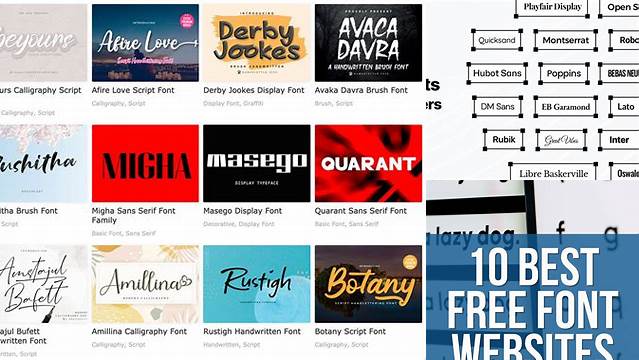
Find The Best Font Sites: A Reddit Guide
Hey guys! So, you're on the hunt for the absolute best website to download fonts, huh? And you've heard whispers of Reddit being the place to find the real gems? You're in luck! This guide is your one-stop shop, diving deep into the world of fonts, what makes a website great, and, of course, what the Reddit community has to say about the top contenders. We'll explore everything from free font havens to premium font marketplaces, ensuring you're well-equipped to find the perfect typography for your projects. Whether you're a seasoned designer, a budding enthusiast, or just someone who wants to jazz up their documents, this is your ultimate resource. Let's get started, shall we?
H2: Reddit's Favorite Free Font Websites: Where the Good Stuff is Free
When it comes to finding free fonts, Reddit users are a goldmine of recommendations. They're all about sharing the best resources, and their upvotes and comments often point to the most reliable and high-quality options. Among the most popular suggestions, you'll find websites that offer a wide range of fonts, from classic serifs and sans-serifs to more quirky and unique designs. These sites often host fonts with different licenses, so it’s essential to check the licensing terms to make sure you can use the font for your intended purpose, be it personal or commercial. For instance, some fonts may be free for personal use but require a license for commercial projects. Reddit users frequently emphasize the importance of checking licenses, pointing out potential legal issues if you're not careful. They also value websites with a clean interface, easy navigation, and clear previews that show how the font will look in various settings. Sites that provide a large selection and frequent updates are also highly praised. Expect to find discussions about websites with excellent search functions, allowing you to easily find fonts based on style, weight, or designer. Some of the most-mentioned websites will be sites that meticulously curate their font selections, offering a quality control that saves users time and effort. Many Redditors also appreciate sites that offer font families, where you can download different weights and styles of the same font, giving you more design flexibility. Community forums on these websites or even Reddit threads often discuss which fonts are trending and which ones offer the best value or design aesthetics. Navigating the vast landscape of free font websites can be daunting, but the Reddit community is there to guide you. They constantly highlight the most user-friendly and trustworthy platforms.
H2: Navigating Font Licensing: Understanding the Fine Print
Font licensing is a crucial aspect that Reddit users frequently discuss when evaluating the best website to download fonts. It's a legal minefield if you're not careful, so understanding the different types of licenses is essential. Common licenses include personal use, commercial use, and open-source licenses. Personal use licenses typically allow you to use a font for non-commercial projects, such as personal documents, school projects, or hobbyist designs. Commercial use licenses, on the other hand, are required if you plan to use the font in any project that generates revenue, such as business logos, websites, or products. Redditors often stress the importance of reading the fine print, as the terms can vary widely from one font to another. Open-source licenses are highly valued in the Reddit community because they often offer more flexibility, allowing for free use and modification. However, even with open-source fonts, it’s still essential to check the specific license terms. Some licenses, like the SIL Open Font License, are known for their permissive nature. Reddit users also frequently debate the nuances of font licensing in different jurisdictions, especially when it comes to international projects. They share tips on how to identify reliable websites and how to spot potential licensing red flags. This includes checking the reputation of the font foundry and ensuring that the website clearly states the licensing terms. Font licensing isn't just about avoiding legal trouble; it's about respecting the designers and their work. By understanding the terms, you're ensuring that you're using the font legally and supporting the font creators. It’s common to find threads where users share experiences with licensing, highlighting instances where they've successfully used a font commercially and providing insights into different licensing models. The Reddit community is a great place to stay informed about the latest licensing updates and best practices.
H3: Understanding Font Licenses: Personal vs. Commercial Use
Delving deeper into font licensing, let's break down the difference between personal and commercial use licenses – something Reddit users constantly discuss when evaluating the best website to download fonts. Personal use licenses are designed for non-commercial projects, such as creating personal documents, crafting homemade greeting cards, or working on school assignments. These licenses are typically free, allowing individuals to use the font without any cost. The key restriction is that the font cannot be used for projects that generate revenue or are intended for business purposes. This includes logos, websites, marketing materials, or products sold for profit. Commercial use licenses, conversely, are required when a font is used in any project that generates income or benefits a business. This covers a wide range of uses, from creating a company logo to designing marketing materials for a product. Commercial licenses can vary significantly in cost, depending on the font, the foundry, and the intended use. Some fonts offer a single-use license for a fixed price, while others offer subscription-based licenses. Reddit users often recommend researching and comparing different licensing options to find the best value for their specific needs. Many threads focus on scenarios where the line between personal and commercial use can blur. For example, a Redditor might ask if using a font for a social media post promoting a small business constitutes commercial use. The answers are often nuanced, with users emphasizing the importance of understanding the intent and the potential for generating revenue. Discussions also include examples of situations where the use of a font has led to legal disputes, highlighting the importance of adhering to the licensing terms. Understanding the different licensing models is the cornerstone of responsible font usage, and the Reddit community provides numerous resources and insights to ensure you're making informed decisions.
H3: Identifying Reliable Font Foundries and Websites
Choosing the right website is a critical step in finding the best website to download fonts, and Reddit users offer invaluable guidance on identifying reliable font foundries and websites. A reliable foundry is one that produces high-quality fonts and provides clear licensing terms. Redditors often recommend checking the foundry's reputation by searching for reviews or testimonials. A website that has a good reputation usually means the website has a clean record and many people that love the content on the website. Good customer support is another sign of reliability; a website that responds to inquiries and addresses issues promptly is usually considered trustworthy. Reddit users also advise against downloading fonts from websites that seem suspicious or untrustworthy. These websites may offer fonts that are illegally distributed or contain malware. They suggest checking the website's design and the quality of the fonts themselves as indicators of reliability. Professional websites typically have a polished appearance, clear information about licensing, and high-quality font previews. Reddit threads are filled with recommendations for specific websites and foundries that the community trusts. Users often share their personal experiences with different websites, highlighting both the positives and the negatives. Some websites are praised for their curated font selections, while others are criticized for their poor customer service or unclear licensing terms. Finding a website that offers high-quality fonts and reliable support is what most Redditors want when looking for the best website to download fonts. Websites are constantly being updated, so Redditors are often the best resource when determining if a website is trustworthy or not.
H2: Exploring Premium Font Marketplaces: When You Need Something Extra
Sometimes, the free font offerings just aren't enough. When you're looking for something truly unique or a font with specific features, premium font marketplaces are the place to go. Reddit users often discuss these platforms, offering insights into the best options for those willing to invest in quality typography. Premium marketplaces typically offer a wider selection of fonts, including designs from professional foundries and independent designers. They often provide more advanced features, such as extended character sets, multiple weights and styles, and improved licensing options. Some popular premium marketplaces include Adobe Fonts (formerly Typekit), MyFonts, and Creative Market. Each platform has its strengths and weaknesses, and Reddit users share their experiences to help others find the best fit. Adobe Fonts, for instance, is often favored by users who are already part of the Adobe Creative Cloud ecosystem. It provides seamless integration with design software and a vast library of fonts. MyFonts is another well-regarded platform, known for its extensive collection and the ability to browse fonts based on various criteria, such as style, designer, and price. Creative Market appeals to designers who appreciate unique, handcrafted fonts, often bundled with other design assets. Reddit threads often compare these marketplaces, discussing the pricing, the licensing terms, and the quality of the fonts available. Users share tips on how to find deals, such as taking advantage of sales or discounts. Navigating these premium marketplaces can be daunting, but the Reddit community is there to help you make informed decisions. They discuss the benefits of investing in premium fonts, such as the added value they bring to your projects and the legal security of using properly licensed fonts. Premium marketplaces can be a great resource to find professional-quality fonts that will make your designs stand out.
H3: Top Premium Font Marketplaces According to Reddit
Identifying the best premium font marketplaces is a common topic on Reddit, where users share their experiences and recommendations for the best website to download fonts when you're willing to pay. Adobe Fonts (formerly Typekit) is frequently mentioned due to its seamless integration with Adobe Creative Cloud applications. Users appreciate the convenience of accessing a vast library of fonts directly within their design software. Reddit discussions highlight the value of Adobe Fonts for designers who regularly use Photoshop, Illustrator, or InDesign. MyFonts is another top contender, beloved for its extensive collection and user-friendly interface. Reddit users praise MyFonts for its advanced search capabilities, allowing them to filter fonts based on various criteria, such as style, designer, and price. They also value the platform's comprehensive licensing information, which makes it easy to understand the terms of use. Creative Market stands out for its focus on unique, handcrafted fonts. Redditors appreciate the creative variety and the opportunity to support independent designers. The platform's bundles, which often include fonts along with other design assets, are a great value for users looking to get more for their money. Monotype, a well-established foundry, often receives mentions for its high-quality fonts and reliable licensing. Redditors often discuss the benefits of choosing fonts from reputable foundries, ensuring that the fonts are well-designed and legally licensed. The Reddit community often compares these marketplaces, highlighting the pros and cons of each platform. They share tips on how to find deals, such as taking advantage of sales or discounts. Understanding what each platform offers is important to finding the best option for each individual design needs.
H3: The Advantages of Investing in Premium Fonts
Investing in premium fonts is often a topic of discussion on Reddit when users are searching for the best website to download fonts. Many Redditors highlight the advantages of paying for high-quality typography. One of the most significant benefits is the superior quality and design that premium fonts often offer. They are typically created by professional designers with years of experience, resulting in fonts that are well-crafted, aesthetically pleasing, and optimized for various uses. Premium fonts often provide a wider range of weights, styles, and character sets, giving designers more flexibility and creative control. This expanded selection allows you to customize your designs to a greater extent and ensures that your typography meets the needs of your project. Legal security is another key advantage. When you purchase a premium font from a reputable source, you receive a license that protects you from potential legal issues. This ensures that you're using the font legally and supporting the font designers. Many users are willing to pay the extra cost, as this protection is invaluable. Premium fonts also often offer better support and documentation. Reputable foundries provide detailed information about their fonts, including usage guidelines, licensing terms, and technical specifications. They also offer customer support to help you resolve any issues or questions. This level of support is often lacking with free fonts. Another factor is the long-term value. Premium fonts are designed to last, and they can be used for many years. They are a valuable asset that can enhance your designs, improve your brand identity, and help you achieve your creative goals. The Reddit community highlights that these advantages translate into a better design experience and ensure your designs stand out.
H2: Reddit's Favorite Font Pairings: Creating Harmonious Designs
Finding the right font is only half the battle. To make your designs truly shine, you need to master the art of font pairing. Reddit users, with their design sensibilities, often share their favorite font pairings, offering insights into how to create harmonious and visually appealing layouts. They discuss the importance of contrasting styles, choosing fonts that complement each other without competing for attention. When browsing the best website to download fonts, you should also consider the font pairings to make a well-designed project. Some popular pairings include a classic serif paired with a clean sans-serif, creating a balance of elegance and readability. Others emphasize the importance of considering the project's overall tone and message. For example, a formal project might benefit from a more traditional pairing, while a modern design could feature a bolder, more experimental combination. Reddit threads often highlight examples of successful font pairings from real-world projects, providing visual inspiration and practical advice. Users share how to balance the hierarchy of elements using different font weights, sizes, and styles. They also discuss how to use font pairings to enhance the overall brand identity of a project. For those just starting out, Reddit users often recommend using online font pairing tools. These tools suggest combinations based on your preferences, saving time and helping you experiment with different options. Users share tips on how to consider the context of your project and ensure that the chosen fonts are appropriate for your target audience. Font pairing is an art, and the Reddit community is an excellent resource for anyone looking to master this skill. When in doubt, ask the Reddit community! They are always ready to provide recommendations and feedback.
H3: Tips for Effective Font Pairing: Balance and Contrast
Mastering the art of font pairing is a critical skill for anyone looking to create visually appealing designs, and the Reddit community offers valuable insights into this process, particularly when it comes to the best website to download fonts and how to use them effectively. A central concept is achieving a balance between different fonts. One of the main goals of font pairing is to combine different typefaces to produce a cohesive and visually engaging effect. For example, the use of a classic serif font might be paired with a modern sans-serif font. This contrast adds visual interest while ensuring that the design remains readable. Contrast is equally important. Users often stress that the fonts should be different enough to avoid confusion, but also similar enough to create a harmonious look. This might involve pairing a bold, headline font with a lighter, body text font. By strategically using different weights, sizes, and styles, you can establish a clear visual hierarchy, guiding the reader's eye through the content. Another key tip is to consider the project's overall tone and message. The fonts you choose should complement the brand's personality and the project's goals. For instance, a professional project might benefit from a combination of classic typefaces, while a casual project might use more playful fonts. Reddit users often recommend experimenting with different font pairings to see what works best. Testing various options is often the only way to discover which combinations look best on the project. Font pairing is an art, and practice makes perfect. Don't be afraid to try new things and to get feedback from others.
H3: Using Online Font Pairing Tools: A Helpful Shortcut
Utilizing online font pairing tools is a practical shortcut for anyone looking to create professional-looking designs, which is why the Reddit community often brings up these resources when discussing the best website to download fonts. These tools offer a simplified way to experiment with different font combinations and find the perfect matches for your projects. They are especially helpful for beginners who may not have extensive knowledge of font pairing principles. Most online font pairing tools allow you to input a font and then suggest complementary options based on various criteria, such as style, weight, and mood. Some tools even provide a visual preview, allowing you to see how the fonts will look together in a real-world context. Reddit users frequently share their favorite tools, discussing their pros and cons. Some popular options include FontPair, Google Fonts, and Canva's font pairing tool. Each tool has its own strengths, and the best one for you may depend on your specific needs and preferences. FontPair is particularly known for its curated selection of font pairings, while Google Fonts allows you to test out combinations with Google's library. Canva's tool integrates seamlessly with its design platform. Redditors often recommend experimenting with different tools to see which ones provide the best results. They highlight that these tools can be a great source of inspiration and can save you time and effort, especially if you're not sure where to start. However, it is also emphasized that these tools should be used as a starting point, and that it's still important to understand the principles of font pairing. Using these tools will help you get a good start in your font pairing journey.
H2: Font Download Websites to Avoid: Red Flags and Safety Tips
While there are many reputable font download websites, there are also some you should avoid. Reddit users are very vocal about these, providing valuable warnings and tips on what to watch out for. When searching for the best website to download fonts, understanding these red flags can help you avoid potential issues. One of the most common red flags is the lack of clear licensing information. Websites that don't specify the font licensing terms, or make them hard to find, should be approached with caution. Another concern is the source of the fonts themselves. Sites that offer fonts without proper licenses or that steal fonts from designers are illegal. Downloading from these sites can lead to copyright infringement and potential legal problems. Reddit users often recommend checking the website's design and reputation as indicators of trustworthiness. Websites that look unprofessional or contain numerous errors are often unreliable. Checking reviews or asking other users can also help you determine if a website is trustworthy. Another thing to look for is the presence of malware or viruses. Some websites may bundle fonts with malicious software, so it's essential to scan all downloaded files before using them. Redditors often advise downloading fonts from reputable sources, and to be careful about clicking on suspicious links or ads. By staying informed, you can protect yourself from potential risks. When looking for the best website to download fonts, users are often looking for the safest website to get their fonts from.
H3: Identifying Suspicious Font Websites: What to Watch Out For
Recognizing suspicious font websites is crucial for ensuring that your downloads are safe and legal. This is something that the Reddit community often discusses when searching for the best website to download fonts. One of the most glaring red flags is the absence of clear licensing information. Any website that doesn’t specify the licensing terms, or makes it difficult to find them, should be treated with suspicion. Another sign is the origin of the fonts. Sites that offer fonts without the appropriate licenses or that steal fonts from the original designers are breaking the law. When in doubt, do your research, and ensure that you are using a font legally. Unprofessional website design is another warning sign. Websites with a messy layout, grammatical errors, or generic content often lack credibility. Always check the website's about page and contact information to verify its legitimacy. The presence of excessive advertisements or pop-ups can also indicate that a website is untrustworthy. These websites often prioritize profit over user experience and may be more likely to host malicious content. Reddit users often recommend scanning all downloaded files before using them. If you have a good antivirus, make sure to scan all files before installing. By staying vigilant and following these tips, you can significantly reduce your risk of encountering problems. Always check the website and ensure you're downloading from a reliable source.
H3: Scanning Downloaded Fonts for Malware: Keeping Your System Safe
Scanning downloaded fonts for malware is an essential step in maintaining the security of your computer, which is why it's a frequent topic of discussion among Reddit users who are on the hunt for the best website to download fonts. Downloading fonts from untrusted sources carries the risk of exposing your system to malware, viruses, and other malicious software. To protect yourself, always scan downloaded font files before installing them. Use a reputable antivirus program to scan the files. Most antivirus programs offer real-time protection, which can automatically detect and remove malware. Ensure that your antivirus software is up to date, as this will ensure that it has the latest definitions and can detect the newest threats. Another option is to use online scanning tools. These tools allow you to upload a font file and scan it using multiple antivirus engines. These tools can provide additional layers of protection. Reddit users often discuss their preferred antivirus software and online scanning tools, sharing tips on how to identify and remove malware. By taking these precautions, you can minimize the risk of infection and keep your system safe. If you do detect malware, quarantine the file immediately and run a full system scan. Prevention is key, so it's essential to follow these safety tips to protect your device.
H2: The Best Font Websites: Reddit's Top Recommendations
So, after all the discussions, warnings, and licensing advice, what are the actual best websites to download fonts according to Reddit? Let's dive into the community's top picks, categorized for your convenience. Remember, these recommendations are based on user experiences and feedback, so always double-check the licensing terms and ensure the website meets your individual needs.
H3: Free Font Havens: Top Reddit-Approved Websites
When it comes to free fonts, Reddit users have several favorite websites. Google Fonts is consistently praised for its large, high-quality selection and the ease of use. The website offers a wide variety of fonts, all available under open-source licenses. Font Squirrel is another highly recommended site. It offers a curated selection of free fonts, with clear licensing information for each font. Font Squirrel is also known for its excellent support and its handy font identifier tool, which helps users identify fonts from images. DaFont is another favorite, but some Redditors warn about the quality and licensing, advising users to carefully check each font's terms. Despite this caution, DaFont is still a popular choice, with an extensive catalog and is also very easy to use. Another option is 1001 Fonts. This website offers a wide selection of free and premium fonts, and is a great resource for those looking for a wide range of choices. Reddit users highlight the user-friendly interface and the ability to browse fonts by category or style. BeFonts is also recommended. This site has a good selection of fonts. Reddit users enjoy the variety and the easy navigation of the site. Always double-check the licenses before using any fonts from these websites.
H3: Premium Font Marketplaces: Reddit's Premium Choices
For those willing to invest in premium fonts, Reddit users have clear favorites as the best website to download fonts. Adobe Fonts is frequently mentioned, especially by designers who are already using Adobe Creative Cloud. The seamless integration with design software and the extensive font library make it a convenient and valuable option. MyFonts is another popular choice. It has a vast collection and a great search function. The detailed licensing information is very important. Creative Market is appreciated for its unique, handcrafted fonts. Redditors like the variety, and often recommend buying the bundles and special deals. Remember, when using these sites, always ensure that your software is up to date. Buying the proper license is always a good idea if the design is going to be for a commercial use. Ensure you know your licensing needs before purchasing anything from these premium font sites. The Reddit community values the value of the extra options premium font marketplaces provide.
H2: Reddit's Tips for Font Management: Staying Organized
Downloading fonts is only half the battle. Properly managing your fonts is crucial to maintaining an organized design workflow, and the Reddit community offers valuable tips on this aspect. Having the right font can make your design stand out, but only if you know where to find them. A common tip is to create a dedicated font folder on your computer. This folder should be organized by font style or use. This ensures that all of your fonts are stored in one place, making it easy to access them when needed. Many Redditors recommend using font management software. These programs allow you to install, activate, and organize your fonts more efficiently. Popular font management tools include FontBase, NexusFont, and Suitcase Fusion. These tools can preview fonts, create collections, and resolve font conflicts. Another important tip is to develop a naming convention. This means consistently naming your font files and folders in a way that makes sense to you. This makes it easier to find and manage your fonts. Reddit users also recommend creating a master list of your fonts. This list can include the font names, licensing information, and the intended uses. This list helps you keep track of all your fonts. Font management is not just about aesthetics; it's about efficiency and legal compliance. By taking the time to manage your fonts properly, you can streamline your workflow, improve your design, and ensure you're using your fonts legally.
H3: Font Management Software: Streamlining Your Workflow
Utilizing font management software can greatly enhance your design workflow. Font management is an important thing the Reddit community talks about when looking for the best website to download fonts. Font management software helps you organize, activate, and preview your fonts more efficiently. Many Redditors recommend FontBase for its ease of use and its ability to preview fonts. Its intuitive interface allows you to quickly activate and deactivate fonts as needed. Another popular option is NexusFont. It offers a wide range of features, including the ability to create collections, tag fonts, and resolve font conflicts. Suitcase Fusion is also a favorite among designers. It provides advanced features such as automatic activation of fonts in design software and integration with Adobe Creative Cloud. These tools can save you a lot of time by eliminating the need to manually install and uninstall fonts. They also help prevent font conflicts, which can cause problems in your designs. When choosing font management software, consider your specific needs. Some tools are better for beginners, while others offer more advanced features. Test the options out and read reviews. Font management software can be an essential tool for any designer who wants to streamline their workflow.
H3: Organizing Your Font Library: Best Practices
Organizing your font library is key to maintaining a well-structured design workflow. This is something that the Reddit community often brings up when looking for the best website to download fonts. Create a clear folder structure. Organize your fonts into a logical structure. This could be based on font style (serif, sans-serif, etc.), font families, or the intended use. This will make it easier to find the fonts you need. Develop a consistent naming convention. Use consistent naming for your font files and folders. Include the font name, style, and designer. Also, include the licensing information in the file name. Categorize your fonts. Create categories and collections to organize your fonts. This will make it easier to find the fonts you use most often. Use font management software. It can help you manage your fonts more efficiently. This allows you to preview, activate, and deactivate your fonts with ease. Font management is important to have a well-organized design project. Following these best practices will save you time and make your workflow more efficient. Make sure to always keep your fonts organized and well-managed.
H2: Staying Updated: The Latest Font Trends and News
The world of typography is constantly evolving, with new fonts and design trends emerging all the time. Staying updated is essential for designers, and the Reddit community is a great resource for keeping up with the latest news. When looking for the best website to download fonts, staying informed about the latest font trends can help you discover new options and improve your designs. Reddit users often share links to articles, blog posts, and design websites that cover the latest font trends. This includes discussions about the popularity of specific font styles, the emergence of new font foundries, and the use of typography in different design fields. Another way to stay updated is to follow design-related subreddits, such as r/design, r/graphic_design, and r/typography. These subreddits are where users share their work, provide feedback, and discuss the latest trends. Staying current with the latest news can give you a competitive edge, helping you create designs that are both modern and aesthetically pleasing. By following these resources and participating in the Reddit community, you can stay in the loop. The Reddit community provides the best sources to always be updated and on top of the latest trends in the industry.
H3: Following Design Subreddits: Your Source for Inspiration
Following design subreddits is an excellent way to stay inspired and informed about the latest trends in typography, especially when you're on the hunt for the best website to download fonts. Subreddits like r/design, r/graphic_design, and r/typography are invaluable resources. These subreddits are where designers share their work, ask for feedback, and discuss industry developments. By following these subreddits, you can stay up-to-date on the latest font releases, design projects, and typography trends. You can also find inspiration for your own designs, learn new techniques, and connect with other designers. Reddit users often share their favorite font pairings, highlighting the specific fonts used and providing context. You can see how fonts are used in real-world projects. Participating in these subreddits can also help you improve your design skills. You can ask questions, get feedback on your work, and learn from the experiences of other designers. Browsing different designs is an amazing source of inspiration. This can help you experiment with new fonts and design techniques. By following these subreddits, you can elevate your design and increase your design vocabulary. You can also engage in conversations and learn about other users experiences. Subreddits are a great way to find and share your designs, as well as interact with the community.
H3: Keeping Up With Font Foundry News and Releases
Keeping up with font foundry news and releases is a vital aspect of staying current in the world of typography, particularly for anyone looking for the best website to download fonts. Font foundries are constantly releasing new fonts, and the Reddit community often discusses these releases, offering insights and recommendations. One of the best ways to stay informed is to follow the social media accounts of your favorite font foundries. Many foundries announce their new releases and share information about their fonts on platforms like Instagram, Twitter, and Facebook. Another effective method is to subscribe to the newsletters of font foundries and design websites. These newsletters often provide updates on new releases. Reddit users also frequently share news about font releases and offer their opinions on new fonts. You can find these discussions in design-related subreddits. This helps you learn about the latest font releases. You can also find out which fonts are trending and get inspiration for your own designs. Keeping up with font foundry news can also help you stay ahead of the curve. By knowing what new fonts are available, you can experiment with new typography. Staying updated on the latest font trends and being in the know is an important part of the design process.
H2: Conclusion: Finding Your Perfect Font Website and Making Informed Choices
So, what's the verdict? Finding the best website to download fonts really depends on your needs, but this guide, inspired by Reddit's collective wisdom, has hopefully equipped you with the knowledge to make informed choices. Whether you're after free fonts or premium options, remember to prioritize quality, licensing, and safety. Happy designing, and may your typography always be on point!